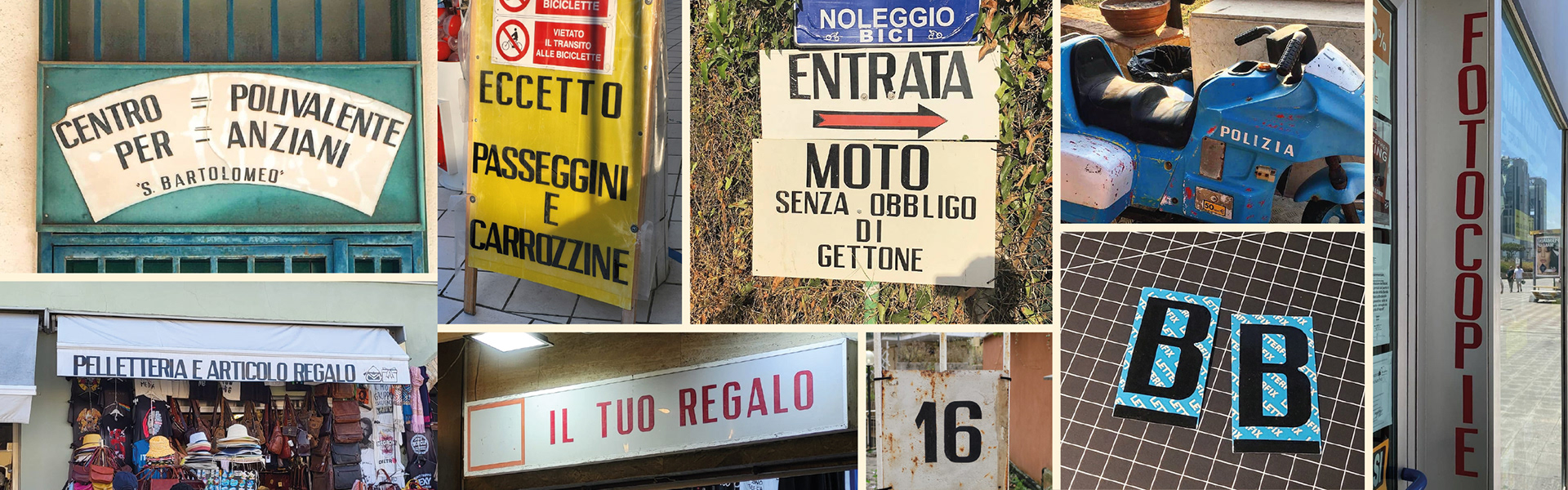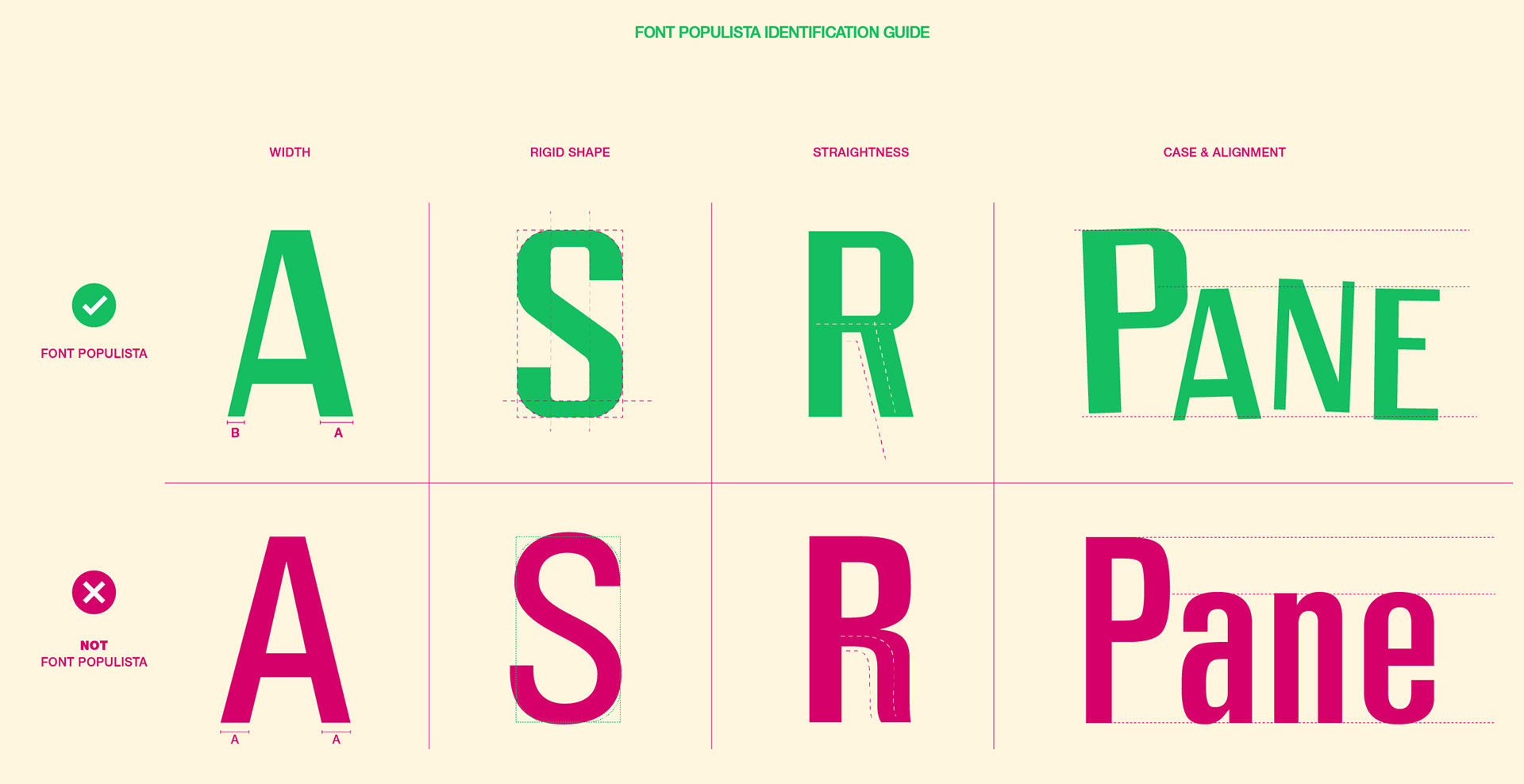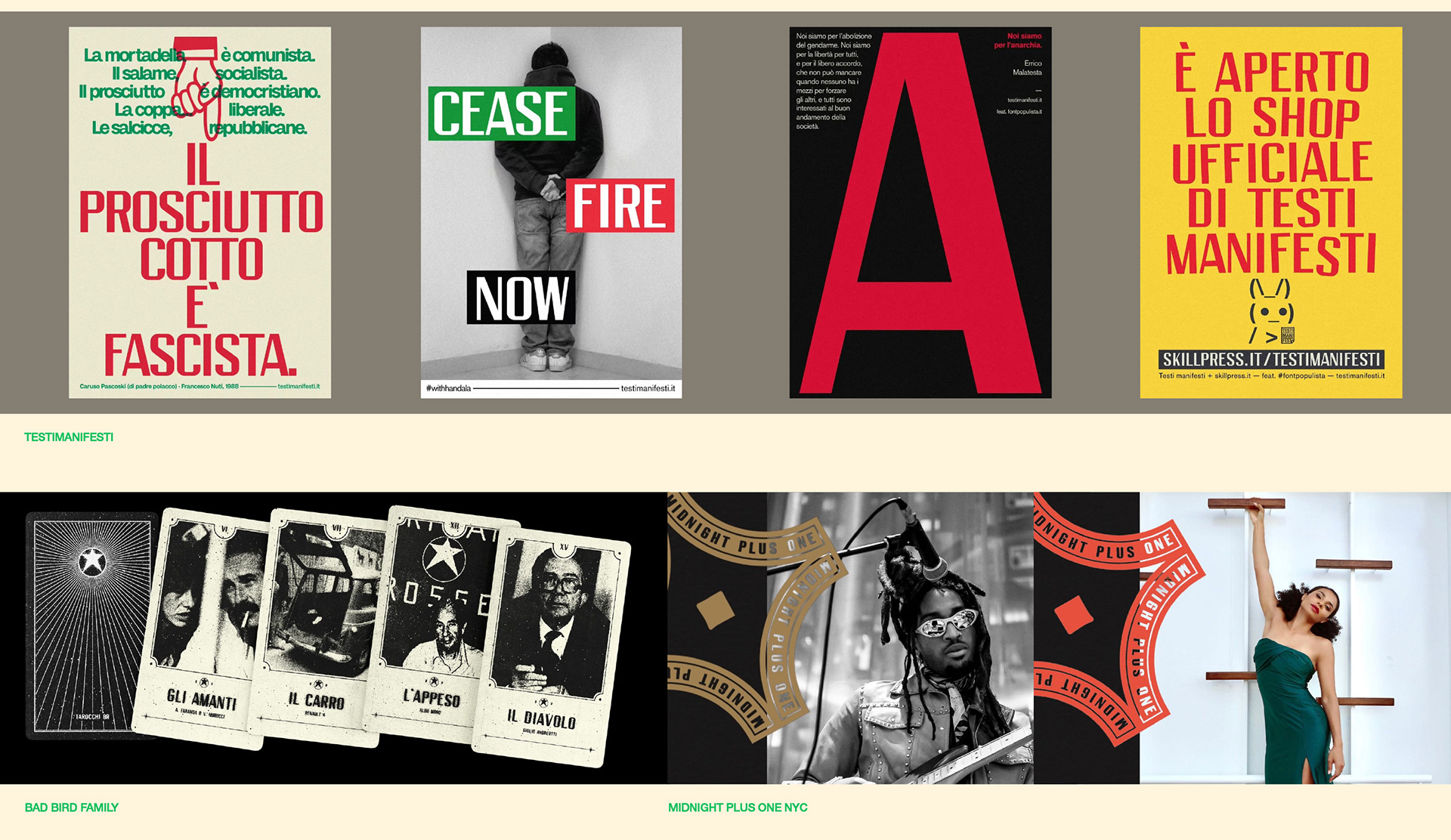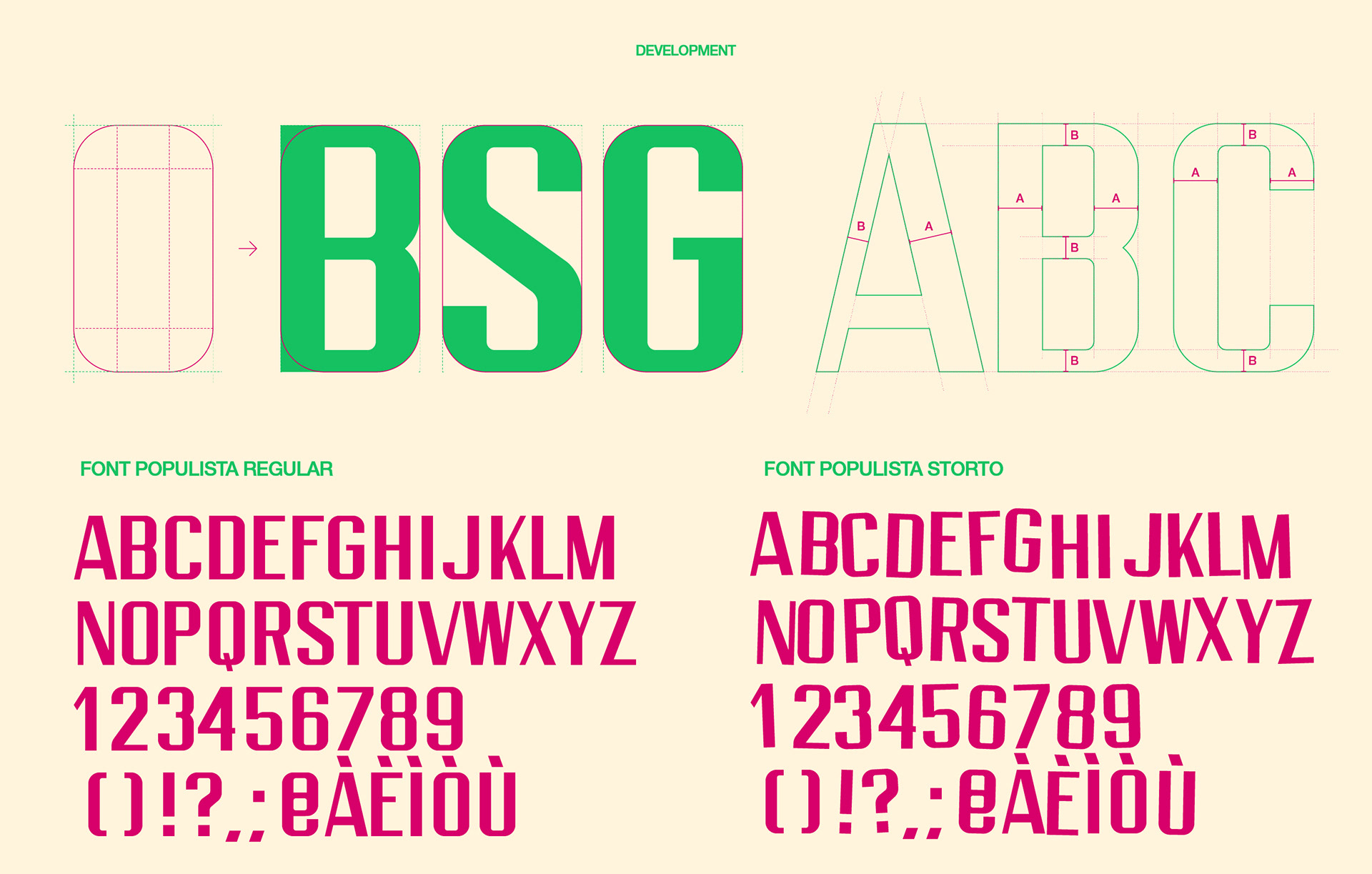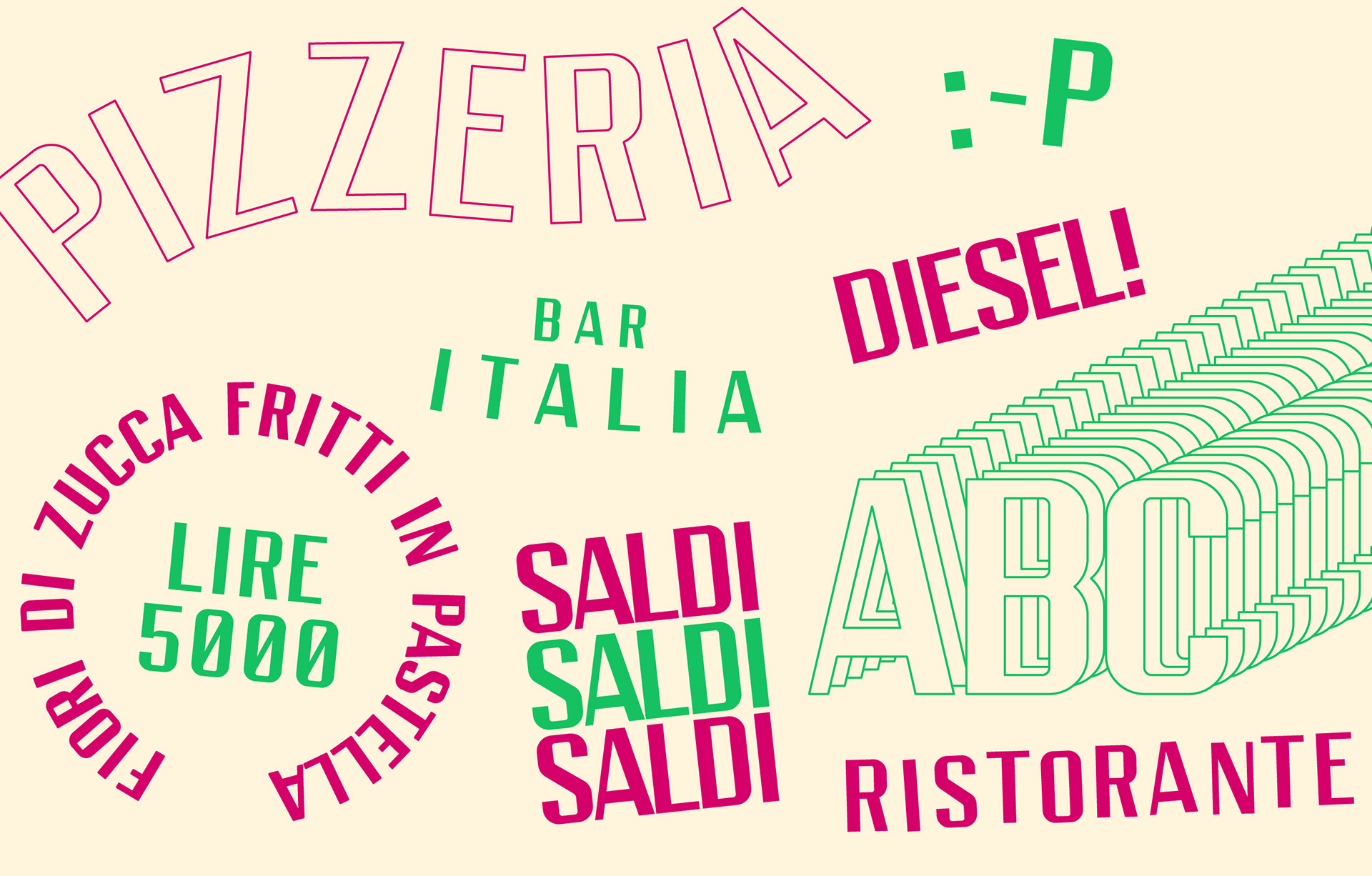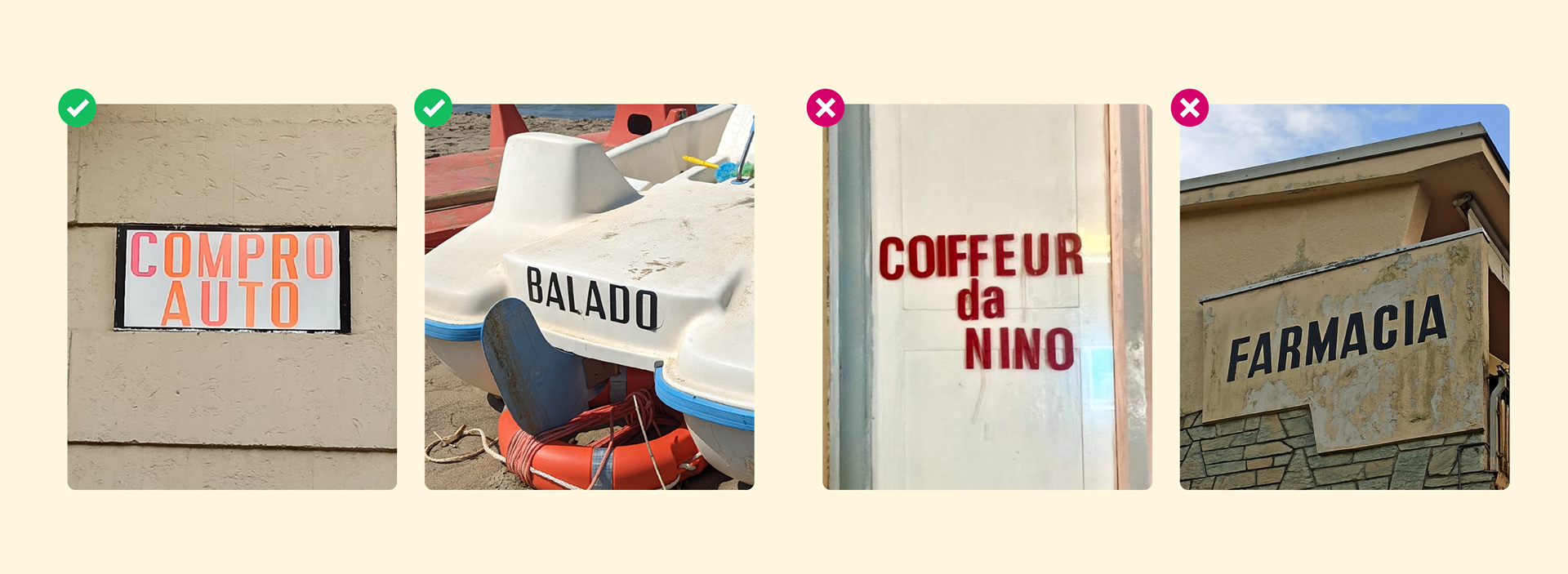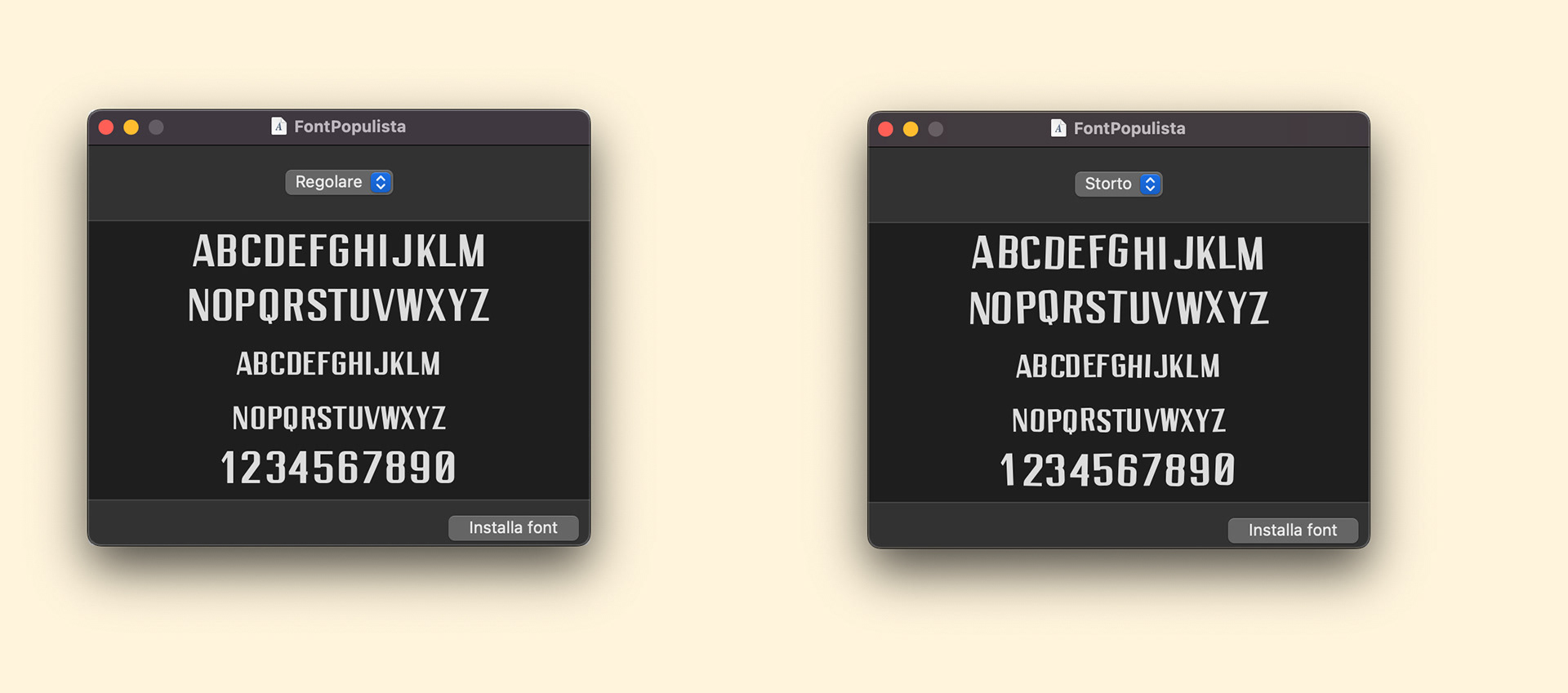
Font Populista
Font Populista is a project that celebrates a popular typographic style in Italy from the 1970s to the 1990s, commonly seen on the shop windows of various commercial activities and artisan workshops.
Originating from adhesive vinyl letters sold in hardware stores, this style, characterized by its DIY approach and often imperfect execution, has unwittingly played a fundamental role in shaping the Italian popular aesthetic. The project aims to preserve this unique, yet endangered, cultural phenomenon through a photographic collection and vector reconstruction of the entire alphabet, with modern additions.